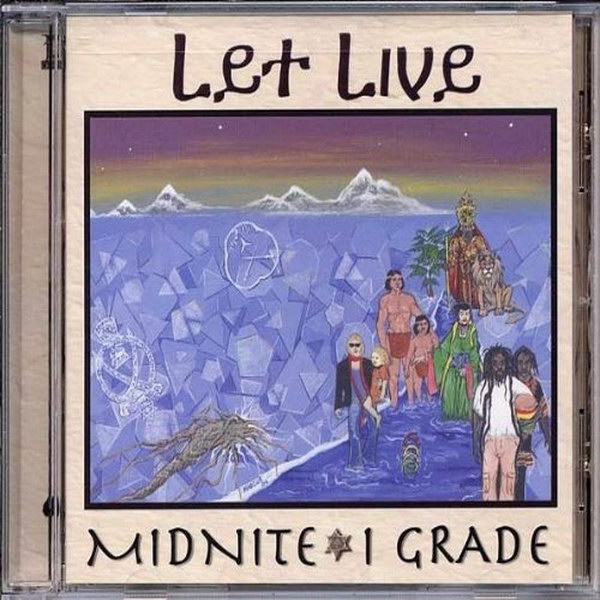
Let Live Font
Fonts in UseLet Live is an album by the reggae band Midnite, released in 2011. It features 14 tracks of conscious lyrics, roots reggae rhythms, and spiritual messages, showcasing the band's signature sound and powerful vocals.
The lettering for the "Let Live" album cover is likely Adis Ababa, inspired by the ancient Ge'ez script used in Ethiopia and Eritrea. The band name lettering closely resembles Herculanum, a commercial font designed by Adrian Frutiger.